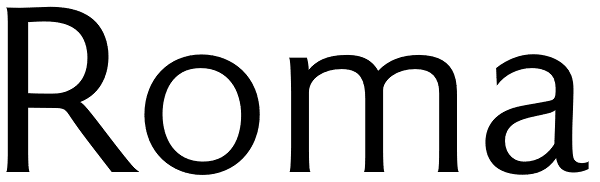
Roma
Tom Lincoln's award-winning type design work since the 1960s has been one way or another of expressing his fascination for the Roman majuscules inscribed at the base of the Trajan Column in Rome. This time he has really outdone himself by bringing...